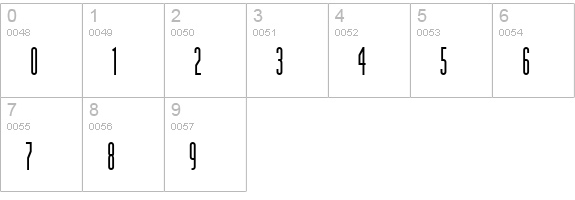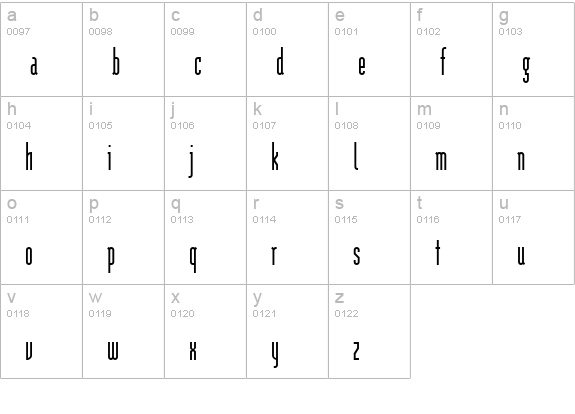
ModulaTall Regular Font Details
ModulaTall Regular is the standard, neutral variant in the ModulaTall typeface family \xE2\x80\x94 well suited to general body text, paragraphs, and standard typographic work.
ModulaTall Regular font is a sleek and modern typeface that exudes elegance and sophistication. With its tall and slender letterforms, this font is perfect for creating a stylish and refined look in your designs. Whether you're working on branding, editorial projects, or web design, ModulaTall Regular will add a touch of class to your work. This versatile font is suitable for a wide range of applications, from logos and headlines to body text and captions. Its clean lines and balanced proportions make it easy to read and visually appealing. ModulaTall Regular strikes the perfect balance between modernity and timelessness, making it a great choice for both contemporary and classic design projects. And the best part is, ModulaTall Regular font is available for free download at FontsMarket.com. This means you can easily access this stunning typeface and use it in your projects without any cost. Don't miss out on the opportunity to elevate your designs with the elegance and sophistication of ModulaTall Regular font. Download it now and see the difference it can make in your work!